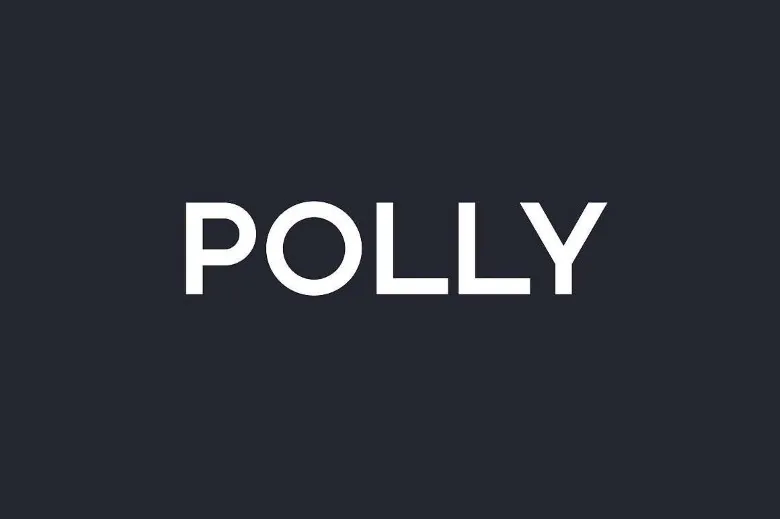
The Polly Font feels warm, friendly, and a little bit playful, with clean letterforms that still have personality. We first noticed it while reviewing type for a series of bold poster lettering concepts, where its clear shapes and strong rhythm stood out on busy, colourful backgrounds.
As we explored this typeface further, we saw how well it balances fun and control, which many modern display fonts struggle to do. The Polly Font can support both simple layouts and richer, cinematic visual identity work, making it a smart choice for designers who want charm without losing clarity.
The exact designer or type foundry for the Polly Font is not clearly credited, so we always suggest checking the original source for details. From its look, it behaves like a modern display typeface with a friendly, human touch, sitting somewhere between casual branding and everyday reading.
Its letterforms show soft curves, open counters, and even spacing, which helps the font feel approachable and easy to scan. The overall word shapes stay stable, so titles and short lines look tidy, even when set in bright colours or over images. Stroke contrast seems modest, which keeps the mood relaxed rather than formal.
In larger sizes, the Polly Font shows off smooth curves and neat joints that suit modern cinematic typography or bold web headers. At medium sizes, its spacing and rhythm support short paragraphs or captions. The tone is upbeat, confident, and slightly playful, fitting brand voices that want warmth without childish energy.
The Polly Font works well in logo concepts, product packaging, and bright social media graphics where you want text to feel friendly yet clear. It shines in titles, cover designs, and thumbnail lettering, giving quick impact when users scroll fast on mobile or streaming platforms.
As a display font, it performs best at medium to large sizes, where its curves and spacing can breathe. We like it for bold web headers, section titles, and short hero messages on landing pages. In print, it suits posters, flyers, and menu covers, especially when paired with a simple sans-serif for long copy.
Brands and creators aiming at young adults, lifestyle products, or creative services can gain from the mood of the Polly Font. It supports visual storytelling in cinematic posters, YouTube covers, and podcast art, where a soft yet confident voice matters. Used with care, it can help build a distinct and memorable visual identity.